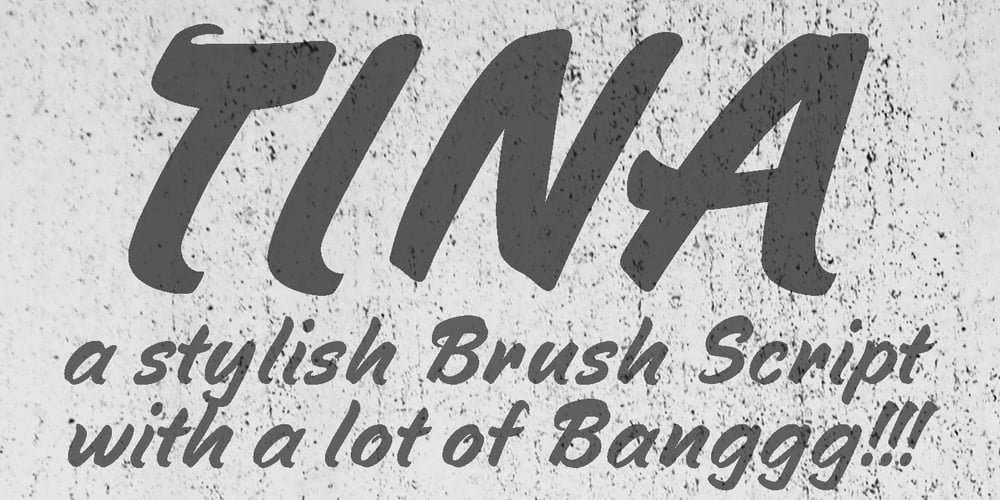
Tina
Tina font
Tina Font Family was designed by Gert Wiescher and published by Autographis. Tina contains 1 styles and family package options. Tina is another powerful script designed in the style of the classic forties and fifties American advertising fonts.